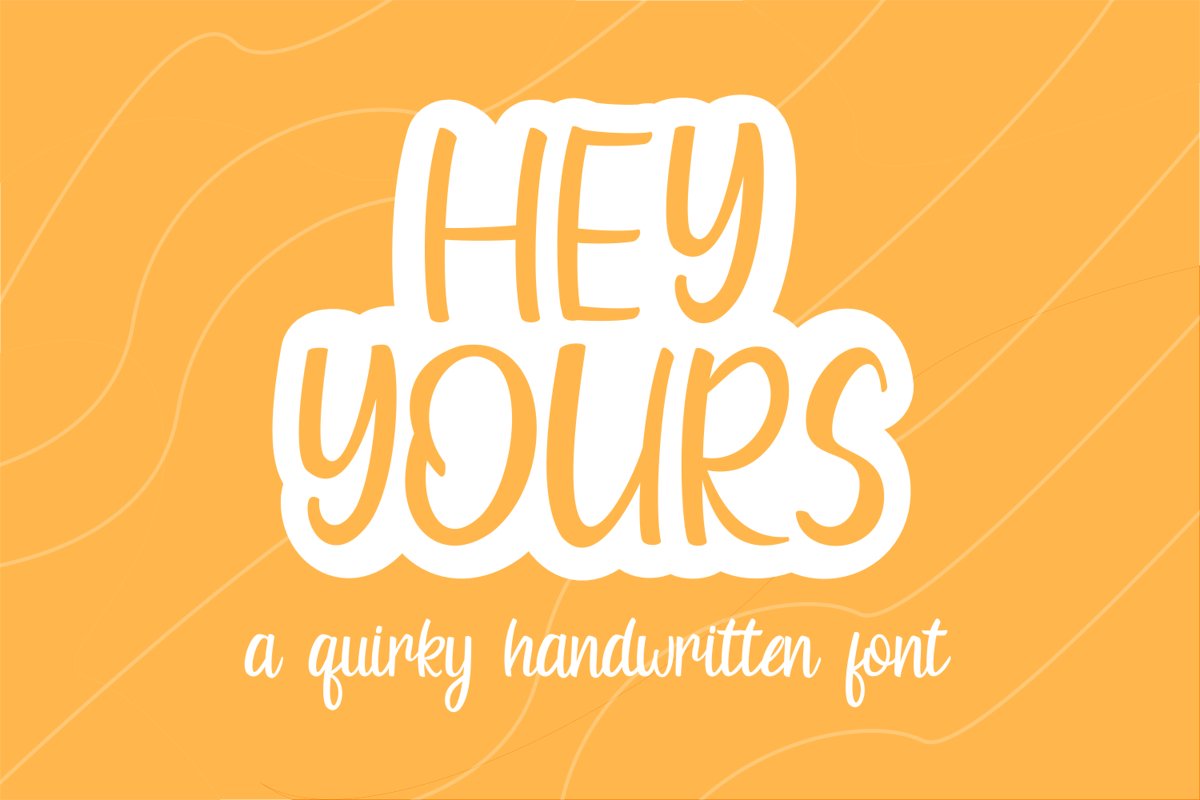
Hey Yours - A Quirky Handwritten Font
Hey Yours font a handwritten font for your project. font suitable for logo, branding, poster and any design that you create.Files included: